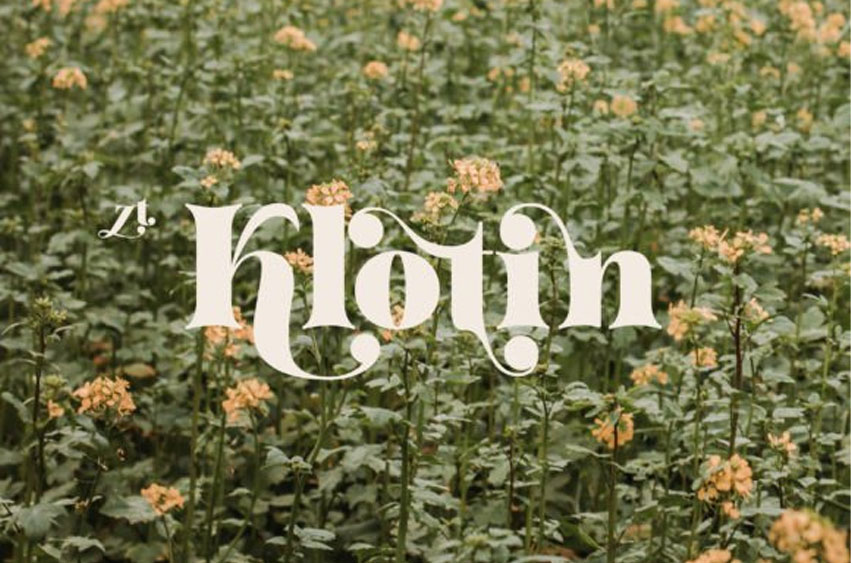
Klotin Font
Klotin Font is a serif font characterized by a strong, classic vibe, with straps, special alternate glyphs, and soft curves. Perfect for branding, weddings, social media, product design, stationery, and advertising. ZT Klotin is flexible enough to add these classic elements to almost any project requiring a special class touch.
ZT Klotin is crafted to be soft and interwoven to create a stunning display of its subtle hypnotic curves, making it the perfect choice for impactful editorial layouts and bold creations.